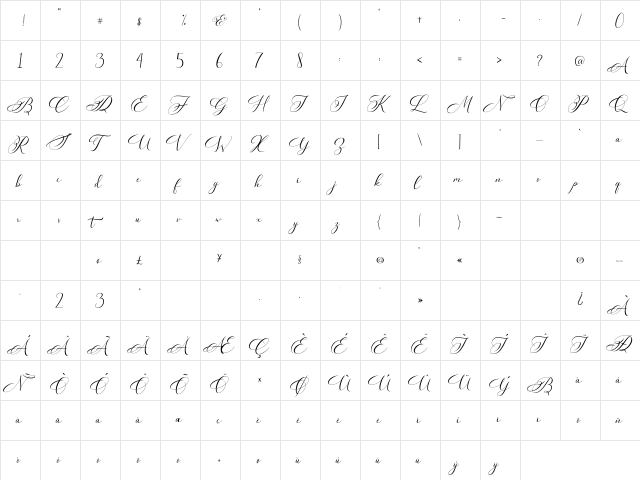
Dellima Demo
Design Context for Dellima Typeface
Dellima is a composed and adaptable typeface that performs quietly and consistently across a wide range of design contexts.
Pro Tip: Pair Dellima with a font of contrasting weight or personality to build a more expressive typographic hierarchy.